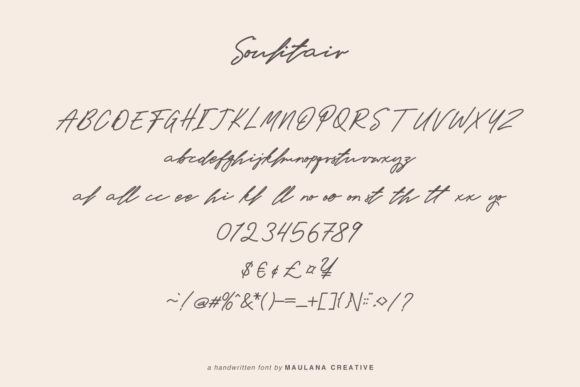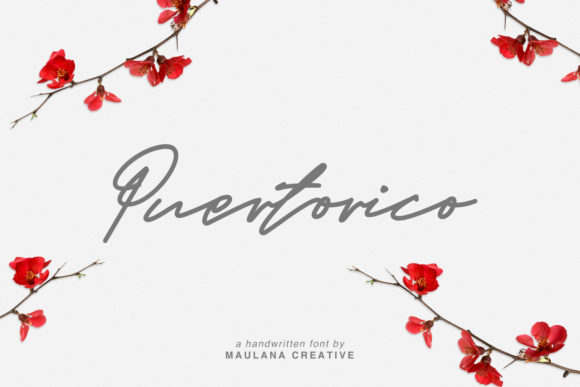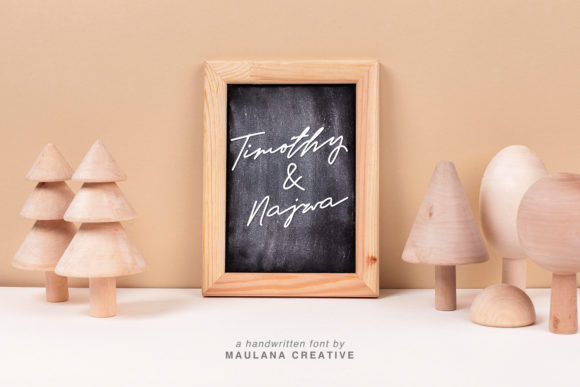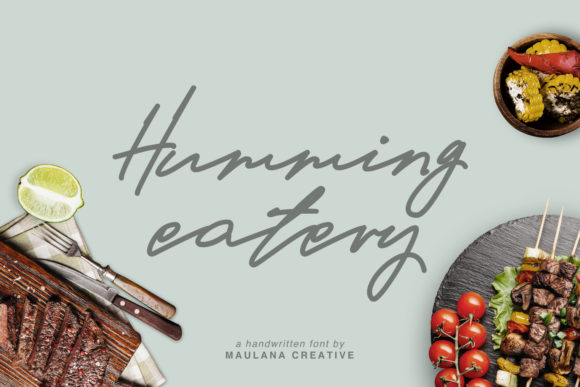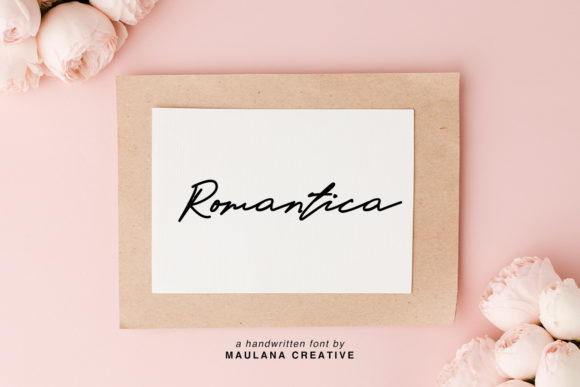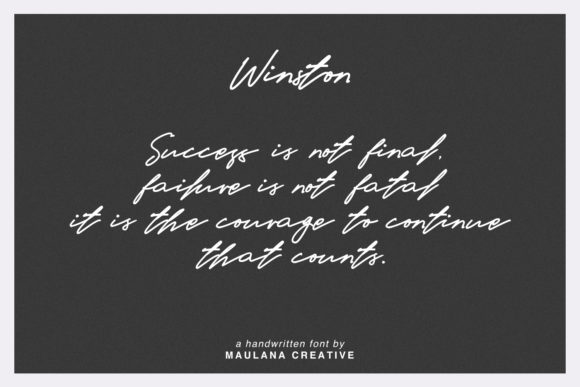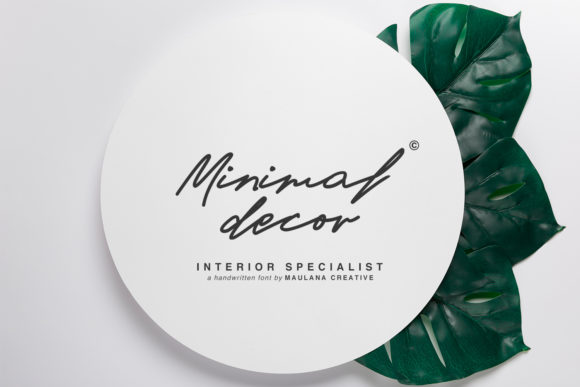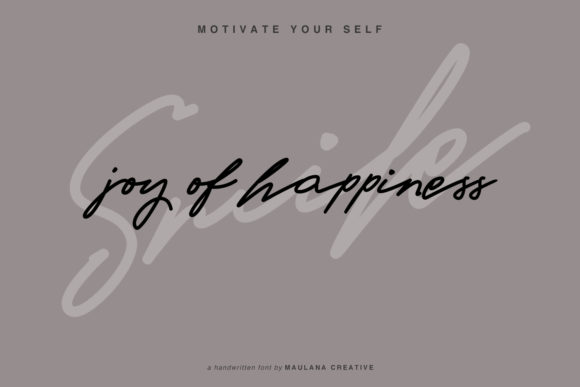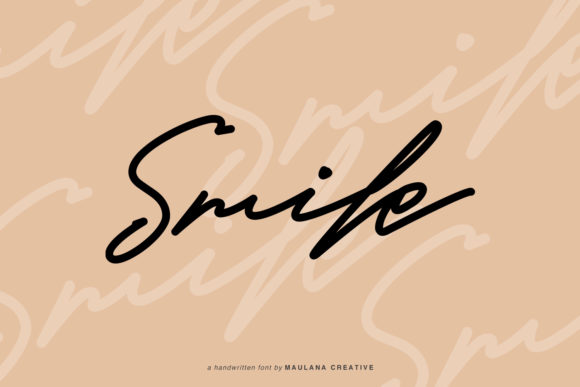
Soulitair Font
About Soulitair Font
Soulitair is a luxurious handwritten font with a signature style. It features a varying baseline, smooth lines, gorgeous glyphs and stunning alternates.
It will elevate a wide range of design projects to the highest level, be it branding, headings, wedding designs, invitations, signatures, logos, labels, and much more!